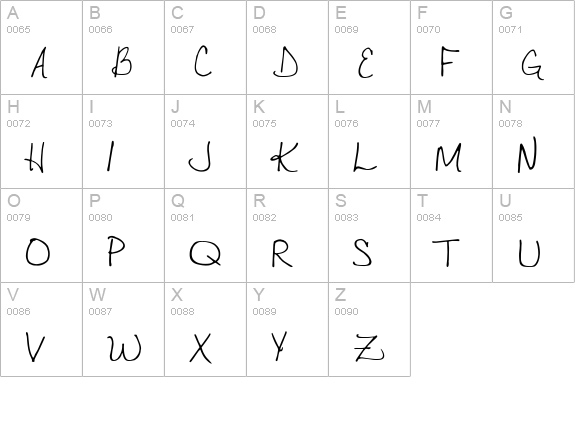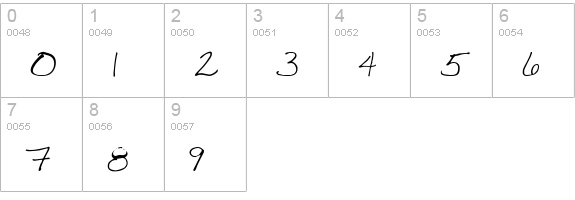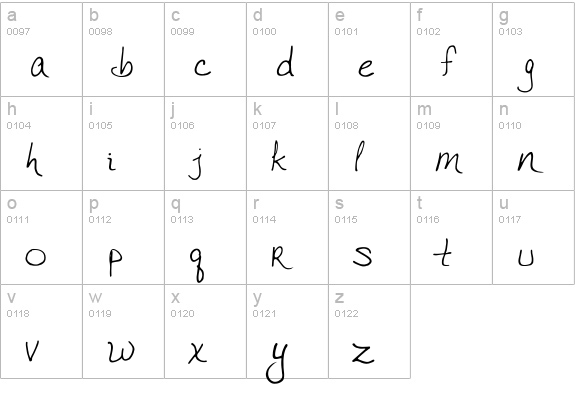
VTC JoeleneHand Regular Font Details
VTC JoeleneHand Regular is the standard, neutral variant in the VTC typeface family \xE2\x80\x94 well suited to general body text, paragraphs, and standard typographic work.
Introducing VTC JoeleneHand Regular font, a delightful typeface that exudes playfulness and charm. With its whimsical strokes and graceful curves, this font captures the essence of hand-drawn lettering, adding a touch of warmth and personality to any design project. VTC JoeleneHand Regular font is the perfect choice for those seeking a free-spirited and artistic vibe in their creations. Whether you're designing a children's book, crafting a logo for a boutique, or creating eye-catching invitations, this font will effortlessly bring your vision to life. One of the many advantages of VTC JoeleneHand Regular font is that it is freely available to download at FontsMarket.com. With just a few clicks, you can add this delightful typeface to your font collection, allowing you unlimited creative possibilities. Say goodbye to the limitations of generic fonts and embrace the uniqueness of VTC JoeleneHand Regular font. The versatility of VTC JoeleneHand Regular font is truly remarkable. Its legibility ensures clear communication, while its artistic flair adds a touch of whimsy and originality. Whether you're designing for print or web, this font adapts seamlessly to various sizes and platforms, ensuring a consistently captivating visual experience. With VTC JoeleneHand Regular font, your designs will stand out from the crowd. Its distinctive style and attention to detail make it a fantastic choice for branding, packaging, and advertising. Captivate your audience with its handwritten charm, leaving a lasting impression that is both captivating and memorable. Download VTC JoeleneHand Regular font from FontsMarket.com today and unlock a world of creativity. Whether you're a professional designer or an enthusiastic hobbyist, this font will become a valuable asset in your toolkit. Embrace the freedom to express your unique style and create stunning designs that command attention. In conclusion, VTC JoeleneHand Regular font is a visually captivating typeface that combines artistic elegance with practical functionality. Its availability as a free download at FontsMarket.com allows you to explore its full potential without any limitations. Add a touch of whimsy and charm to your designs with this delightful font and watch as your creations come to life.